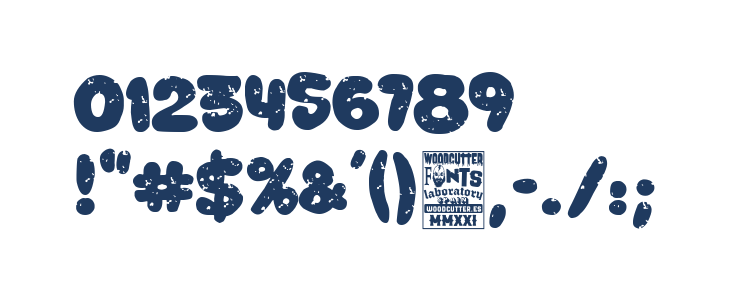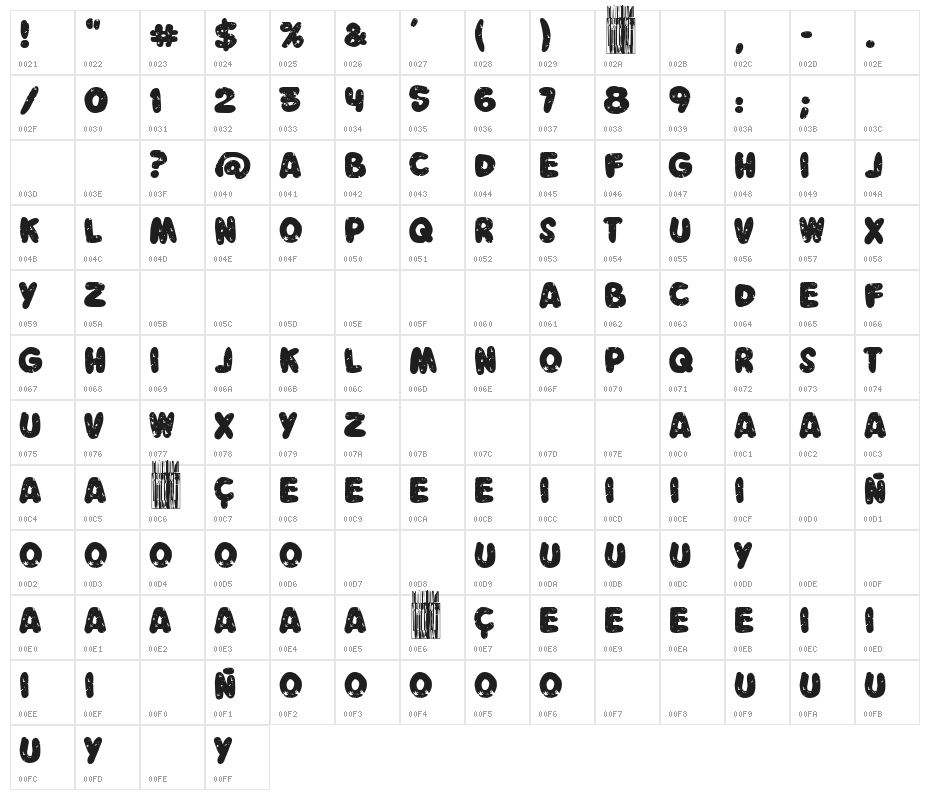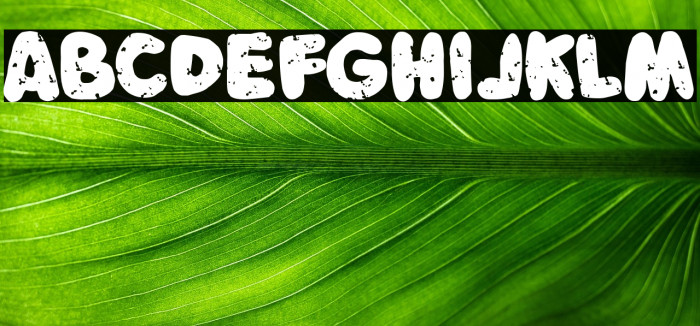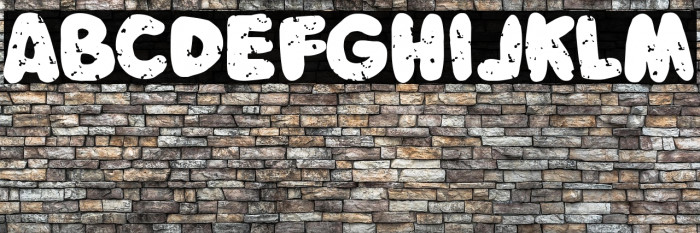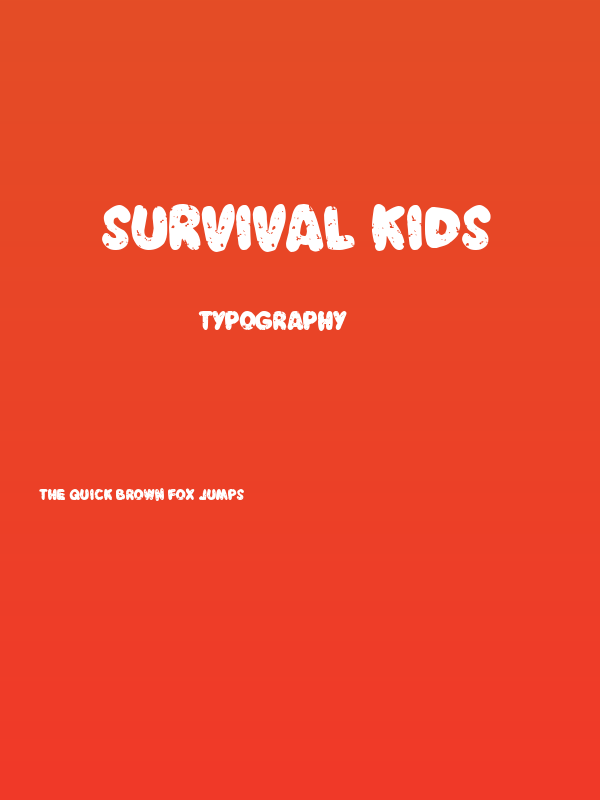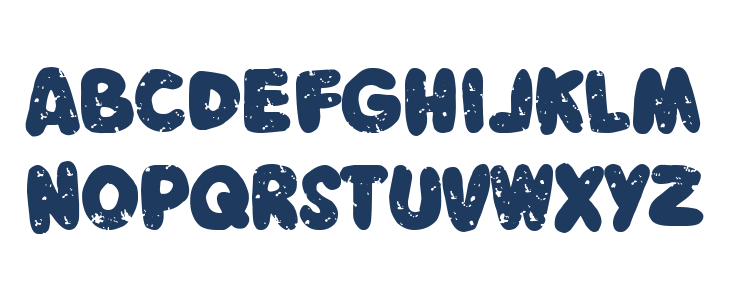
Survival Kids Font
This font features a bold, distressed style with a playful and rugged appearance. The characters are thick and rounded, with a textured, worn-out look that gives them a unique, vintage feel. The uppercase and lowercase letters maintain a consistent style, with slightly irregular edges that add to the font's charm. Numbers and special characters are designed to match the overall aesthetic, making this font versatile for various creative projects. The font's boldness and texture make it stand out, ideal for designs that require a strong visual impact.
Overall StyleVintage, Decorative
Proposed ProjectsIdeal for posters, children's book covers, adventure-themed graphics, and branding projects that require a bold and playful touch.